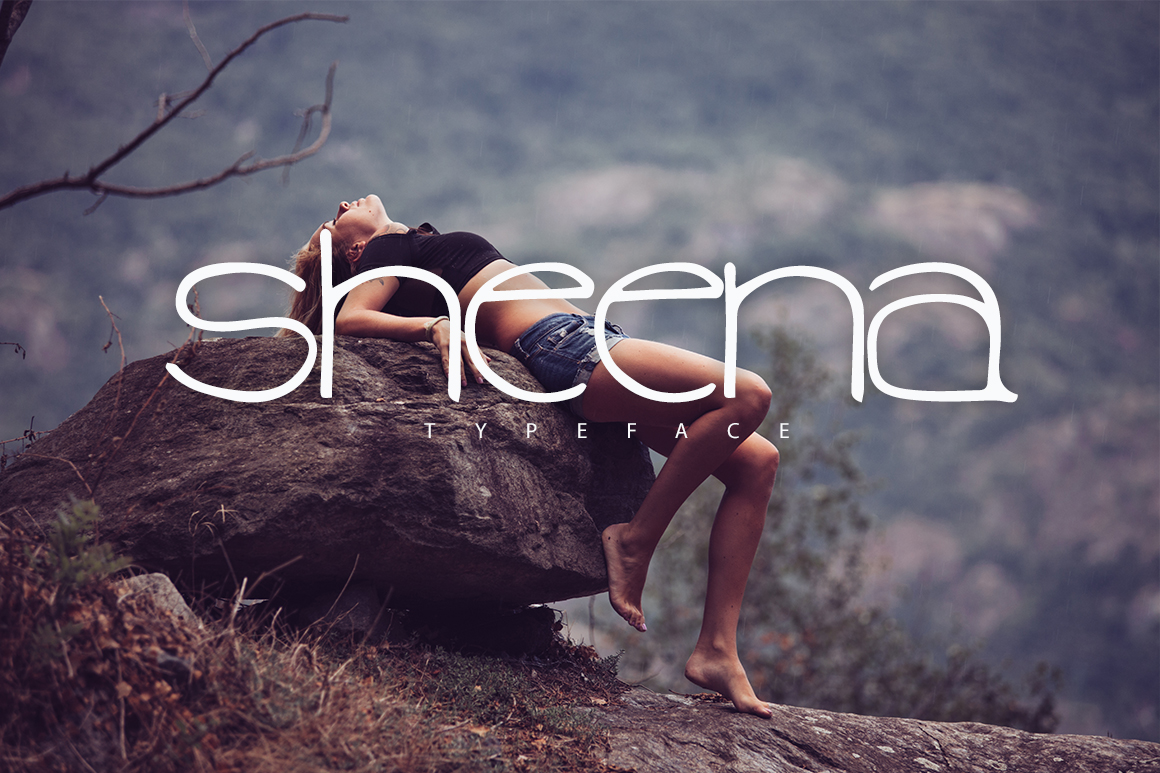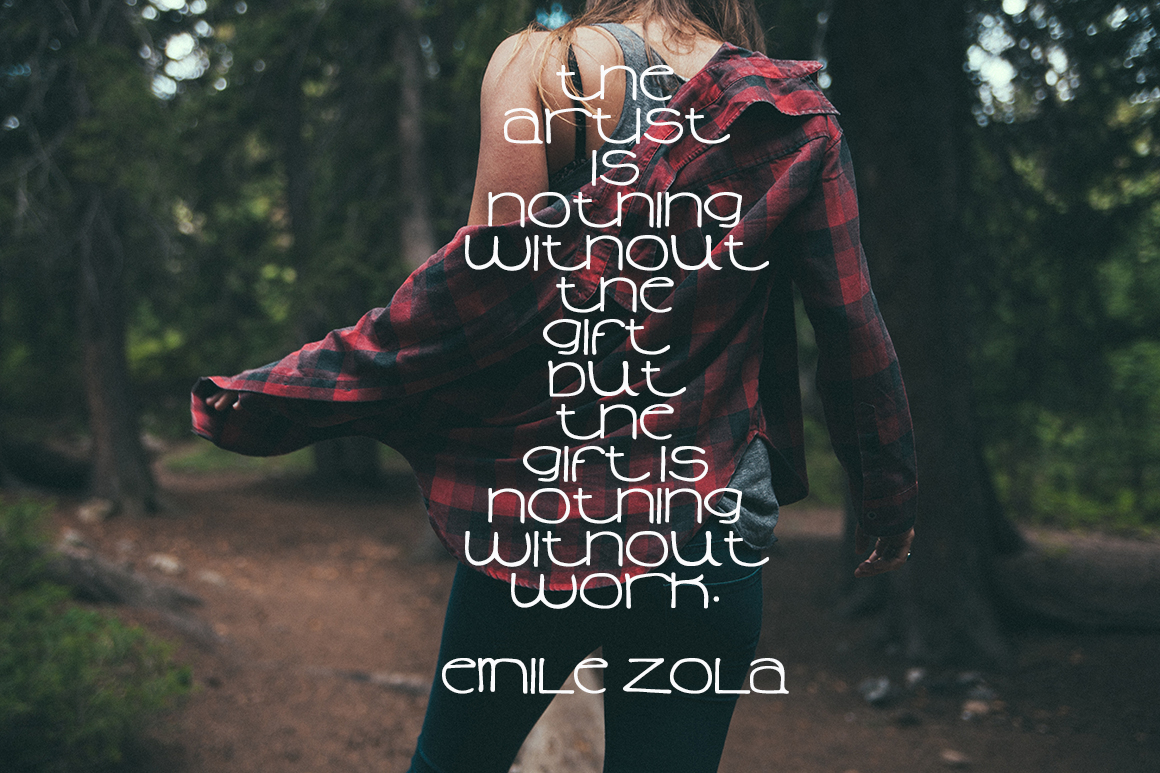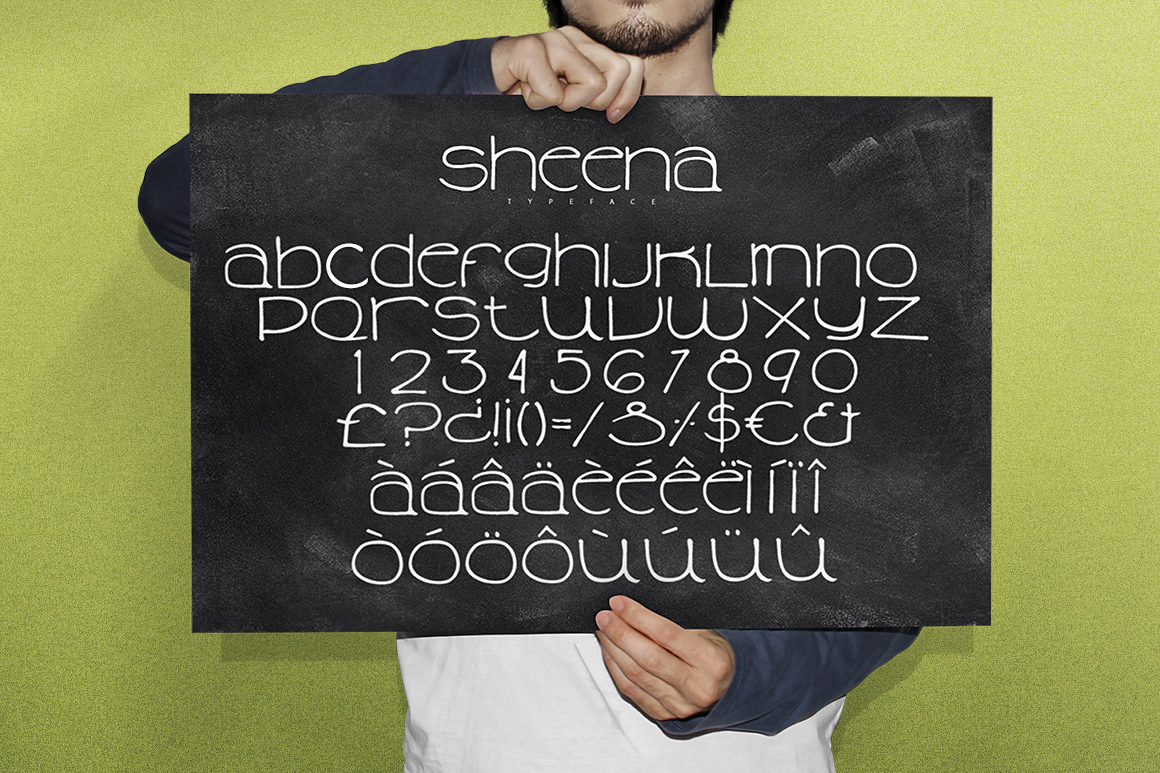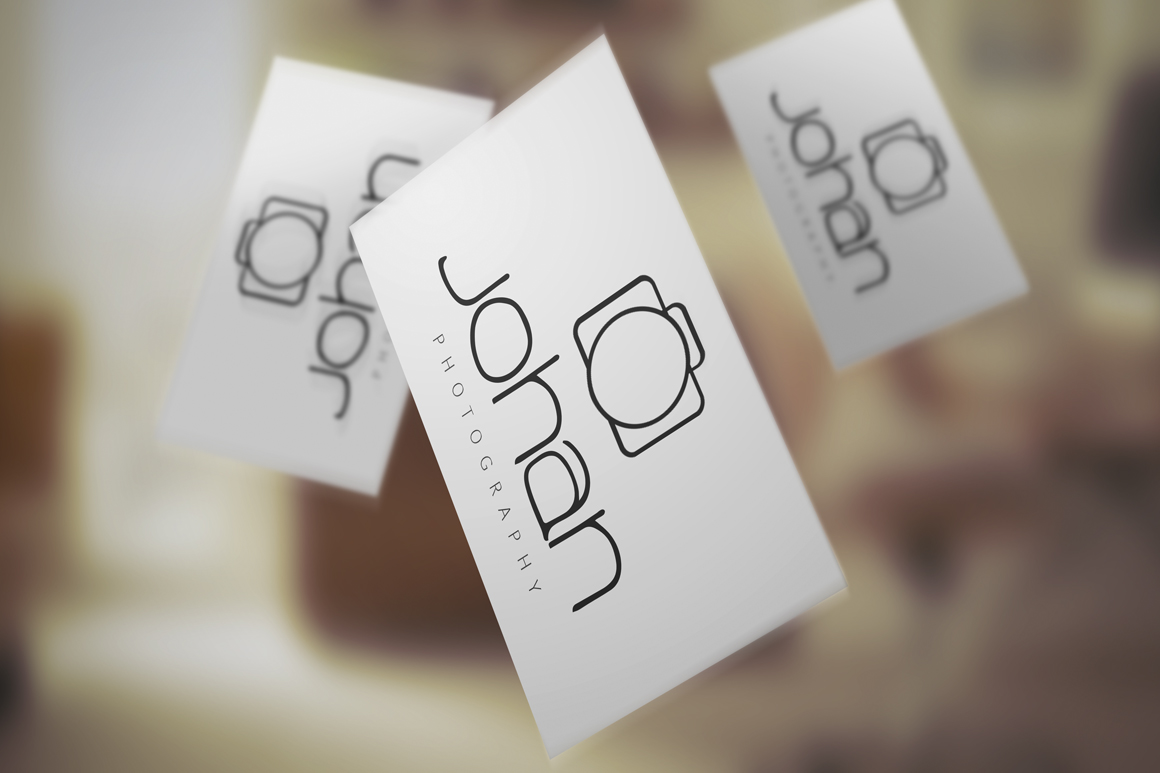
Sheena Font
About Sheena Font
Sheena is a professional looking handmade font. This font has a very easy going and natural feeling. Great for creating professional design that needs to have a playful touch without losing it’s professionalism.